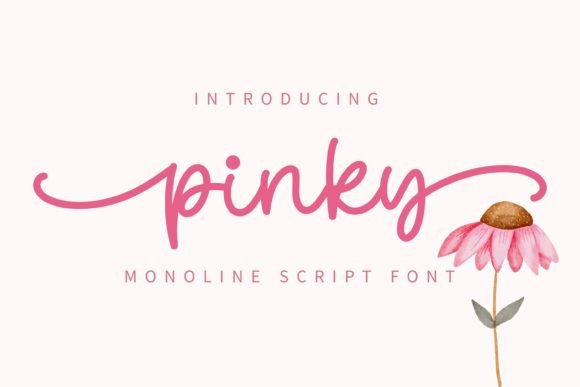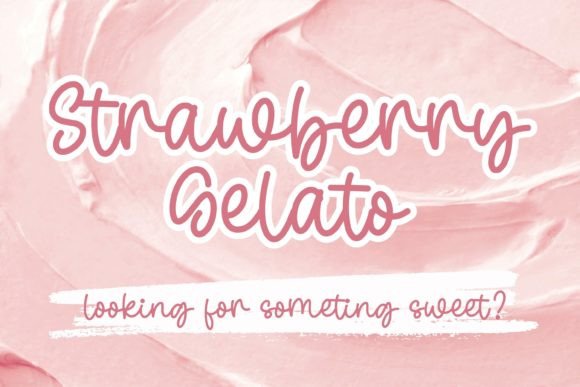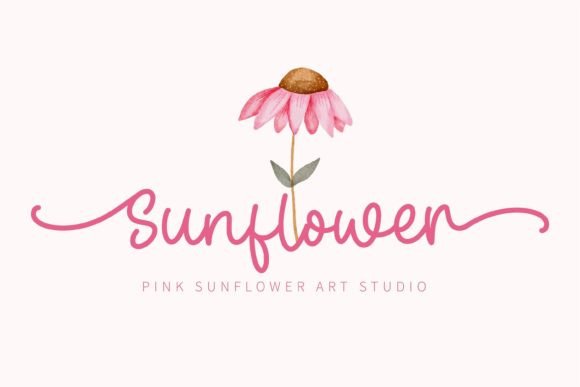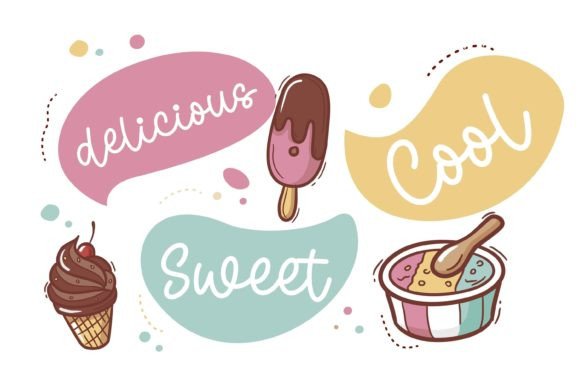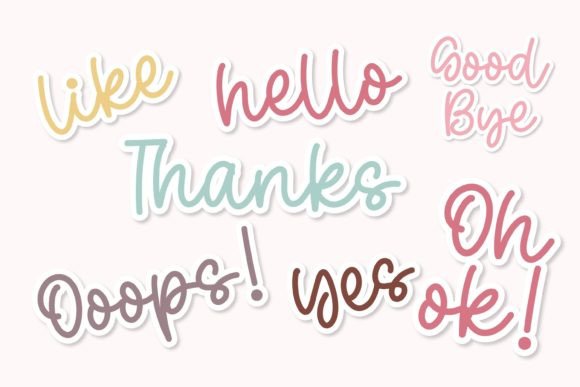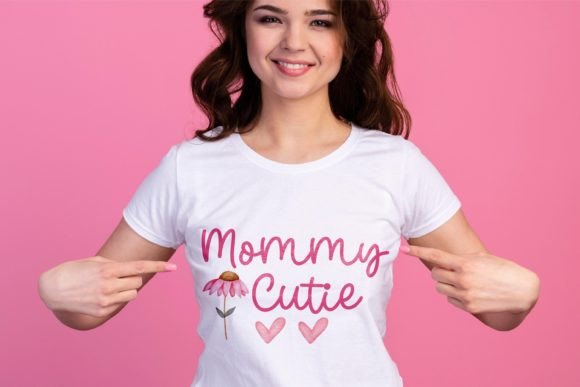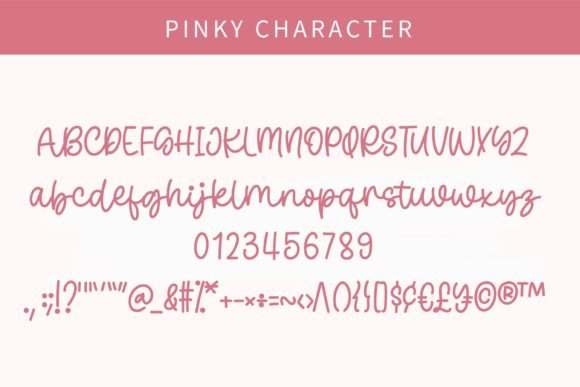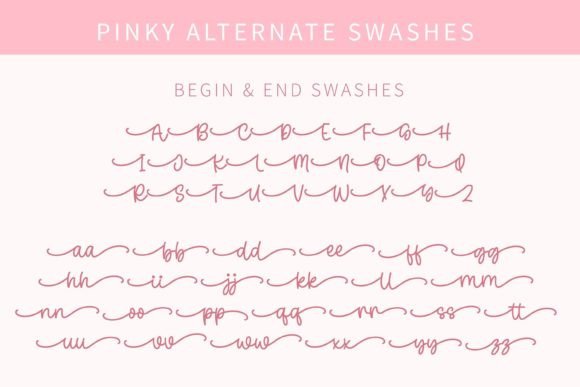
Pinky Font
About Pinky Font
“Pinky” is a sweet and cute handwritten font that exudes an incredibly versatile style. Whether you’re creating wedding invitations, beautiful stationary art, eye-catching social media posts, or any other design project, this font is crafted to add a touch of charm and playfulness.
The sweet and cute elements of “Pinky” make it a delightful choice for projects that require a warm and friendly vibe. Its handwritten style adds a personal and approachable touch, making it suitable for various creative applications.
The inclusion of PUA encoding in “Pinky” ensures easy access to all glyphs and swashes. This feature enhances the font’s versatility, providing you with creative freedom to customize your designs with additional elements.
By incorporating “Pinky” into your projects, you’ll fall in love with its ability to bring a versatile and charming aesthetic to your designs. Whether you’re working on wedding invitations, stationary art, or social media posts, let this sweet and cute handwritten font be the key to creating gorgeous and captivating designs with ease.